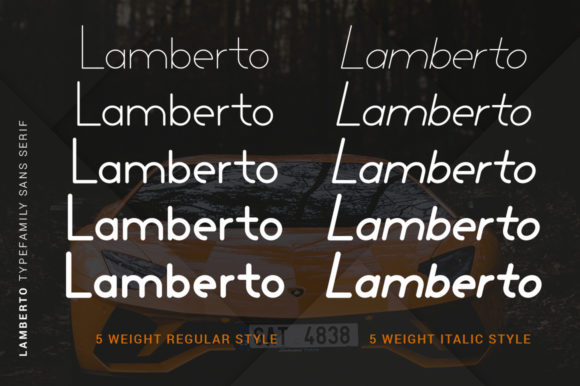
Discover the Lamberto Family Font, the epitome of bold, modern, and sophisticated typography. This sans serif font family, meticulously crafted by ibeydesign, is an artistic masterpiece designed to make a statement in any creative project. With its 20 distinctive variations, Lamberto is a versatile chameleon, effortlessly adapting to suit your unique vision.
Unleash your creativity and embrace the limitless possibilities of Lamberto. Its clean lines, sharp angles, and confident curves bring a touch of elegance and sophistication to your designs. From stunning photography to captivating social media posts, striking advertisements to memorable logos and branding, Lamberto elevates your message with its bold presence.
Step into the world of Lamberto and be captivated by its versatility. Whether you're designing elegant invitations, creating eye-catching product designs, or crafting beautiful labels and stationery, this font family seamlessly blends into your vision, enhancing it with a touch of timeless charm. From product packaging that commands attention to special events that demand a touch of grandeur, Lamberto is your trusted companion, transforming your designs into unforgettable experiences.
Immerse yourself in the world of Lamberto and let your imagination soar. Its powerful taste adds a captivating allure to your creations, leaving a lasting impression that lingers in the minds of your audience. Discover the endless possibilities of Lamberto and ignite your creative spark today. Explore its 20 variations, each a unique expression of boldness and grace, and unlock the true potential of your designs.